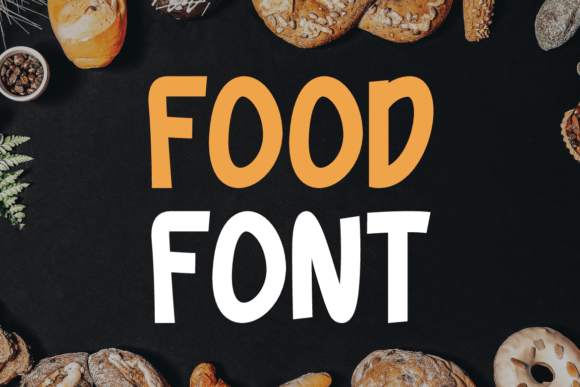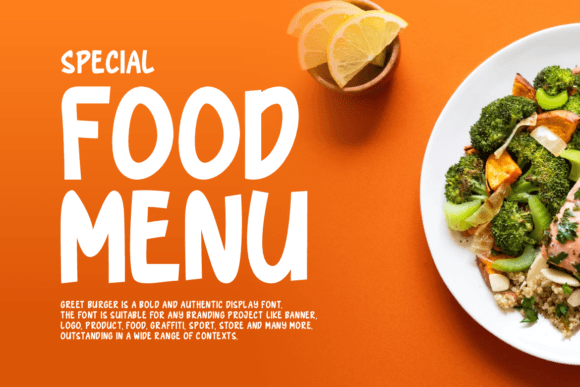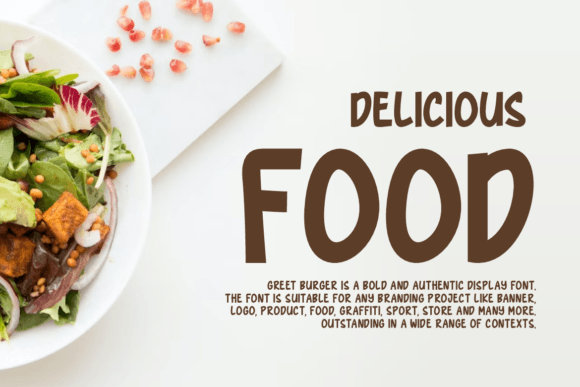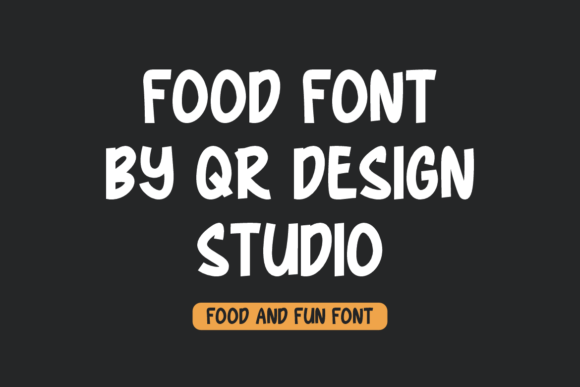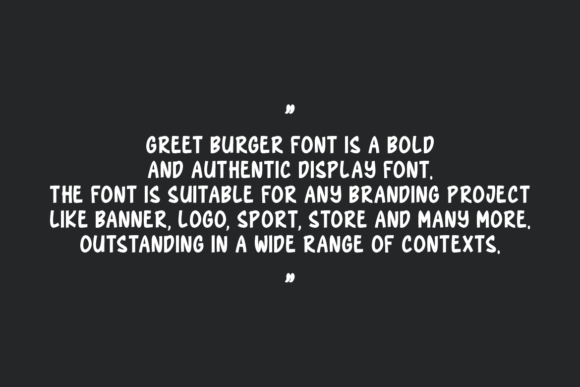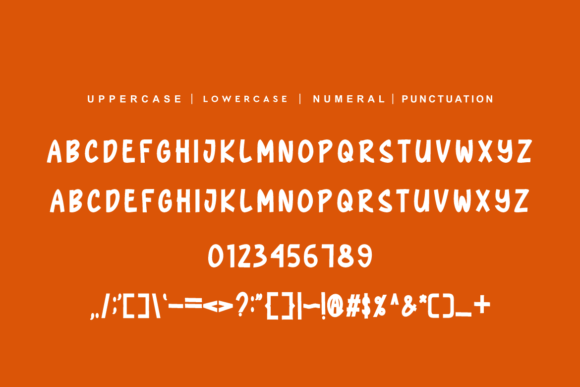
Greet Burger Font: The Perfect Addition to Your Design Collection
Are you a designer or crafter looking for a unique and playful font to add to your collection? Look no further than Greet Burger Font! This cute and quirky food display font is sure to bring a joyful touch to your designs and make them stand out from the crowd.
What is Greet Burger Font?
Greet Burger Font is a display font designed specifically for food-related designs, but its versatility makes it perfect for a wide range of creative projects. Its playful and whimsical style is reminiscent of childhood memories of burgers and summertime fun. The font’s unique design features rounded edges and a bouncy feel that will add a touch of personality to any design.
Key Features of Greet Burger Font
- Cute and Quirky Design: Greet Burger Font boasts a one-of-a-kind design that’s sure to capture the attention of your audience.
- Food Display Font: While designed with food in mind, this font’s versatility makes it perfect for a wide range of creative projects.
- Playful and Whimsical Style: The font’s rounded edges and bouncy feel evoke a sense of fun and playfulness.
- Easy to Read: Despite its playful design, Greet Burger Font remains easy to read, making it perfect for headlines, titles, and short text.
How to Use Greet Burger Font
Greet Burger Font is perfect for a wide range of design projects, including:
- Food Packaging: Add a playful touch to your food packaging designs with Greet Burger Font.
- Restaurant Branding: Use Greet Burger Font to create eye-catching restaurant branding, including menus, signage, and advertising.
- Social Media Graphics: Add a pop of personality to your social media graphics, including Instagram posts, Facebook graphics, and Twitter headers.
- Invitations and Party Decor: Use Greet Burger Font to create playful invitations and party decor for birthdays, BBQs, and other celebrations.
Why Choose Greet Burger Font?
With so many fonts available, why choose Greet Burger Font? Here are just a few reasons:
- Unique Design: Greet Burger Font boasts a unique design that’s sure to make your designs stand out.
- High-Quality: This font is designed with high-quality in mind, ensuring it will look great in any design.
Tips for Using Greet Burger Font
Here are a few tips for getting the most out of Greet Burger Font:
- Use it Sparingly: While Greet Burger Font is playful and fun, it can be overwhelming if used too much. Use it sparingly to add a pop of personality to your designs.
- Pair it with Other Fonts: Greet Burger Font pairs well with a variety of other fonts. Experiment with different combinations to find the perfect look for your design.
- Experiment with Colors: Greet Burger Font looks great in a variety of colors. Experiment with different colors to find the perfect look for your design.
Greet Burger Font is a unique and playful font that’s sure to add a joyful touch to your designs. With its cute and quirky design, high-quality construction, and ease of use, it’s the perfect addition to any design collection. Whether you’re a designer, crafter, or DIY enthusiast, Greet Burger Font is a must-have font that’s sure to make your designs stand out.